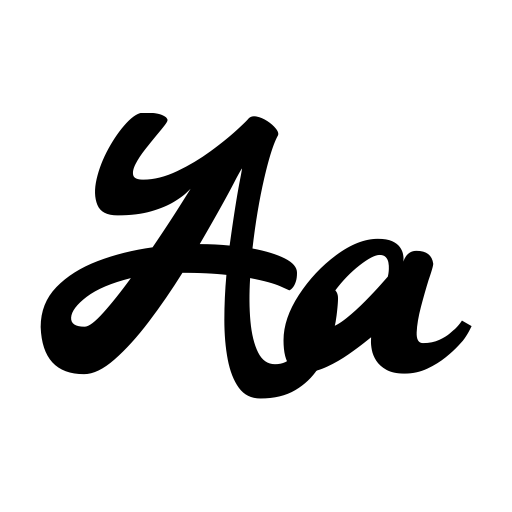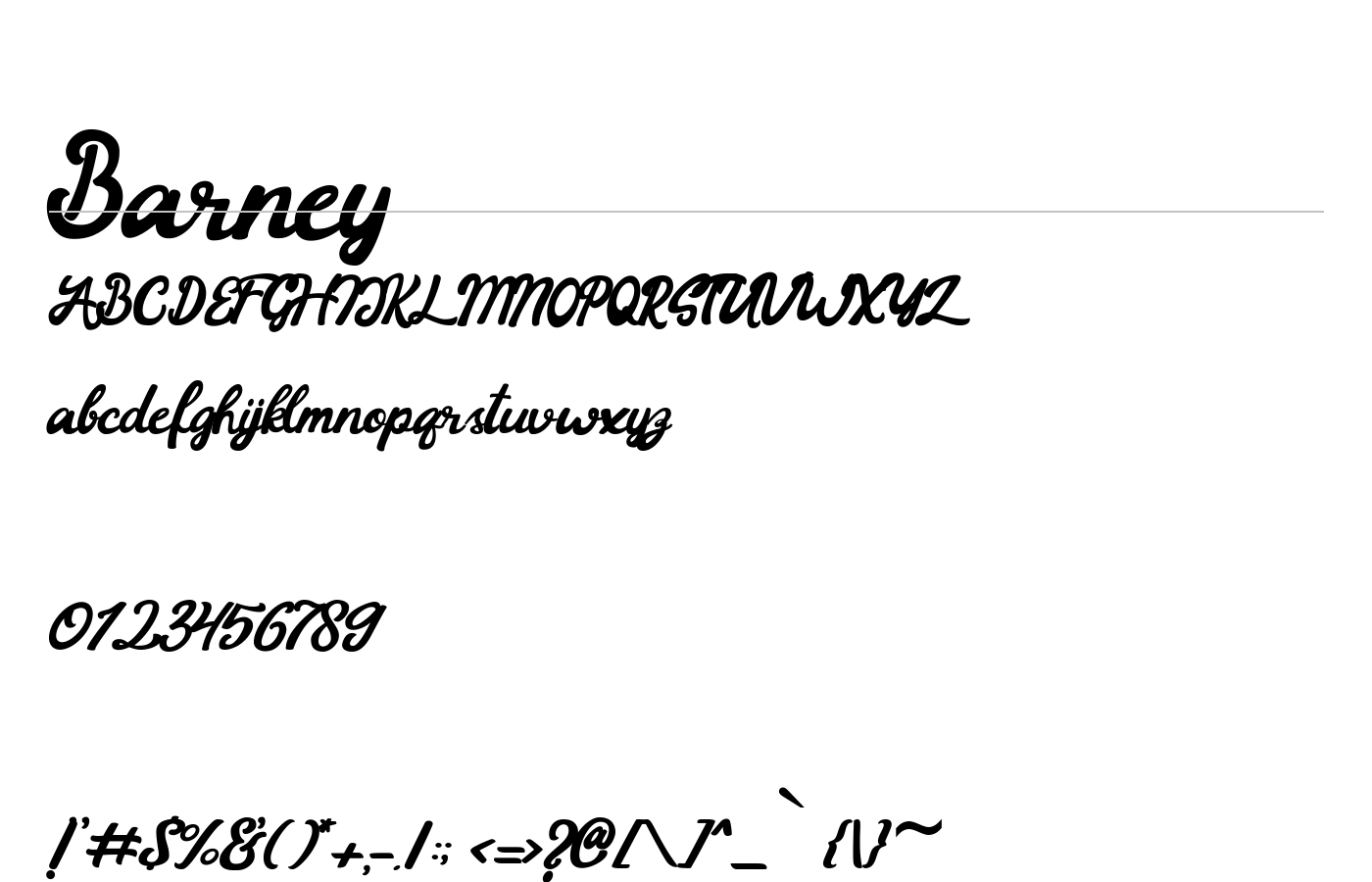
Barney Font is a bold, flowing script with a vintage charm, featuring connected letterforms and an elegant brushstroke style that gives it a warm, handcrafted feel. Its medium weight and smooth curves make it perfect for adding personality and a touch of nostalgia to branding, packaging, invitations, and headlines where a playful yet sophisticated look is desired. This font works well in designs seeking to evoke friendliness and creativity without sacrificing readability.
Barney Font